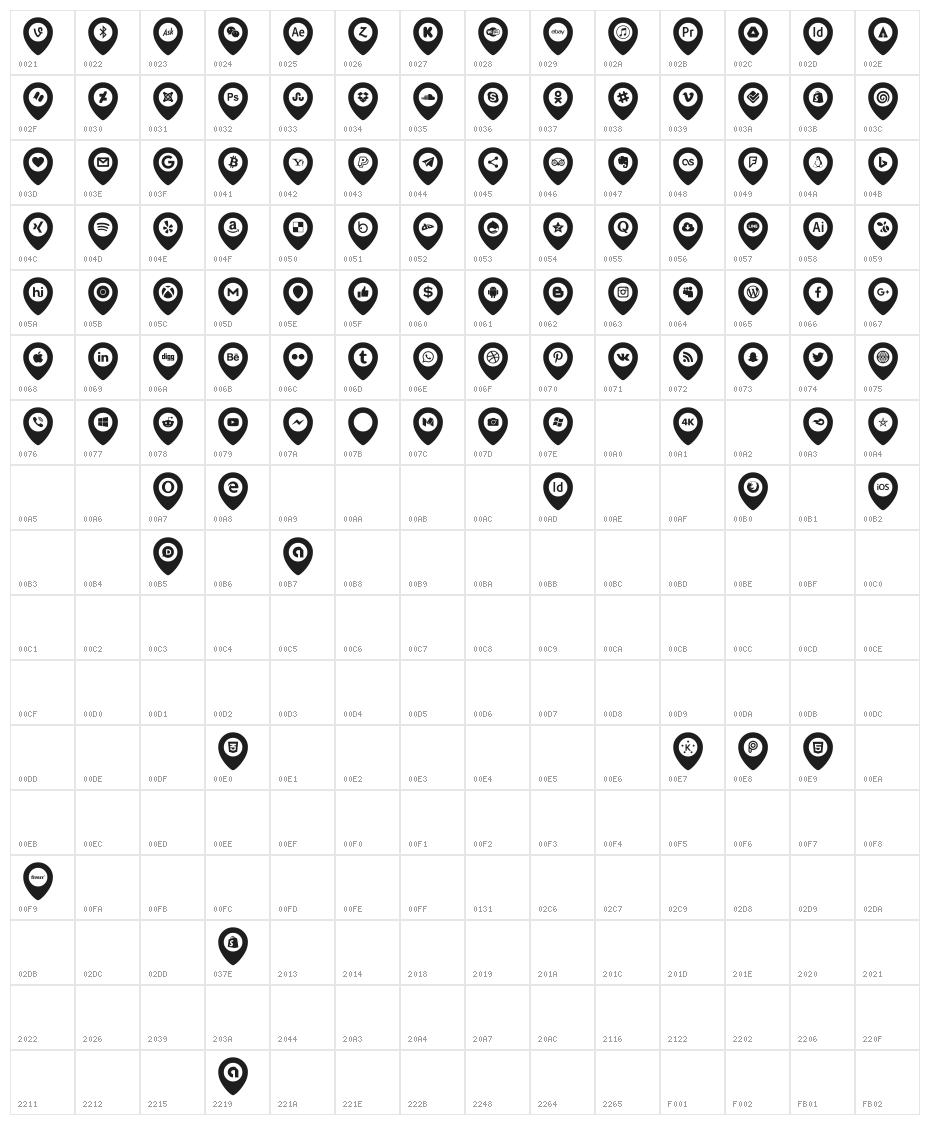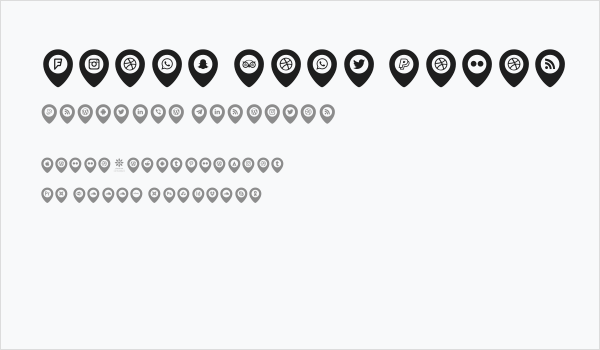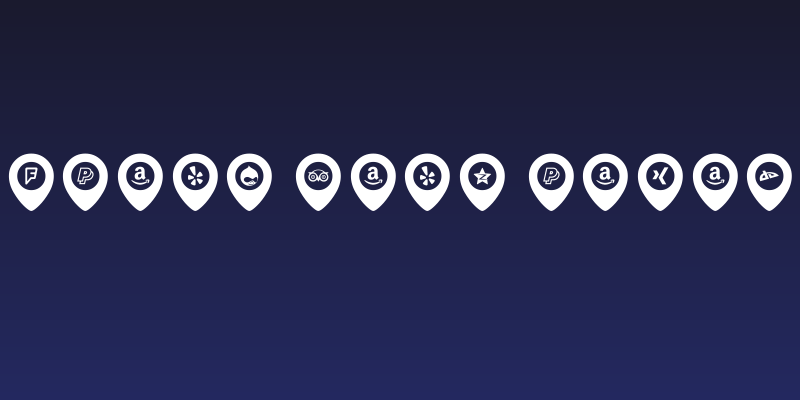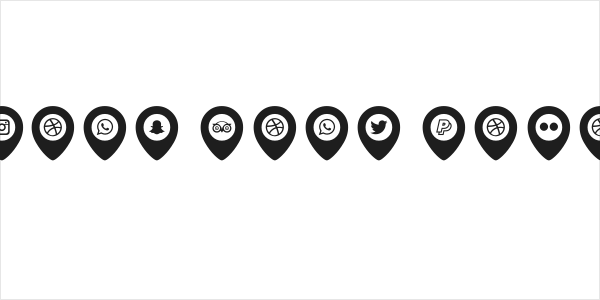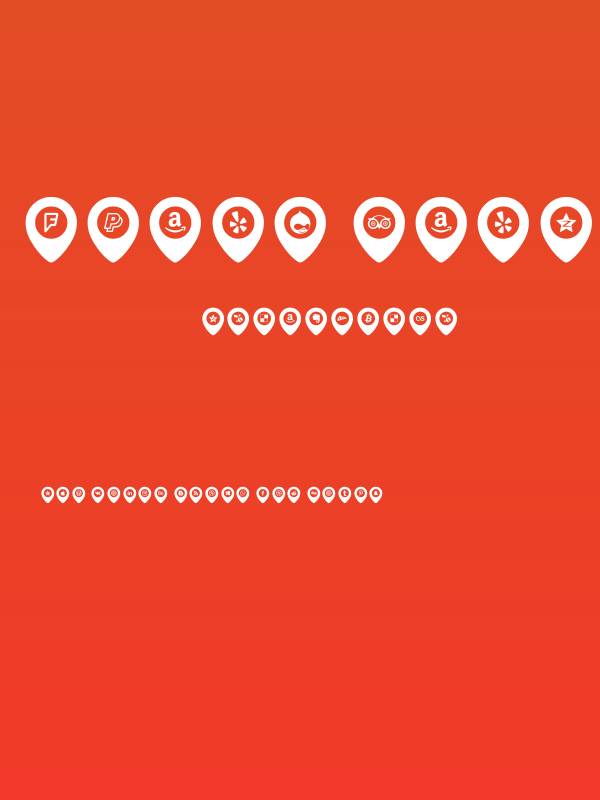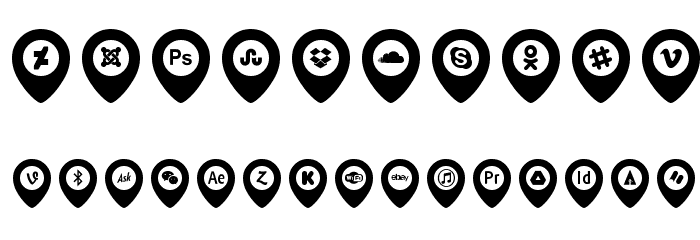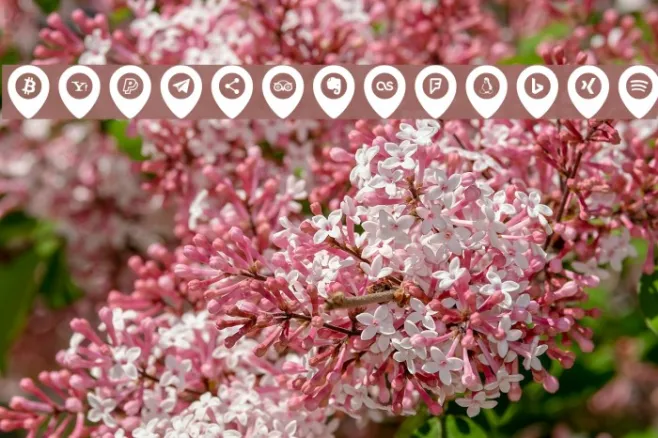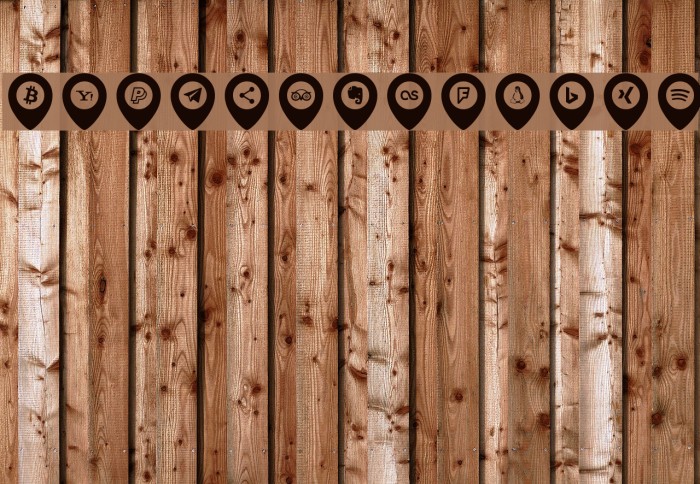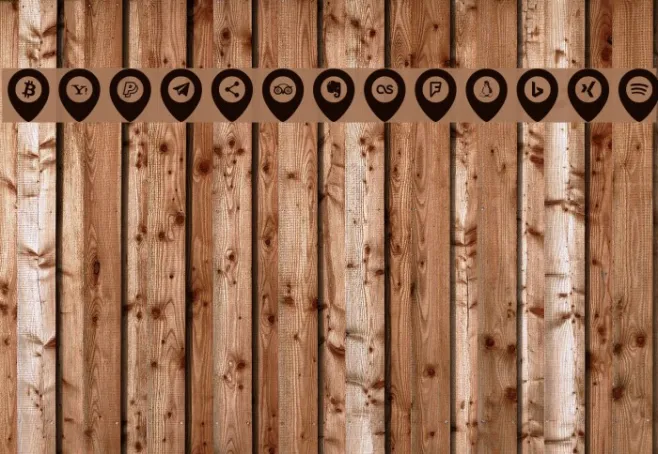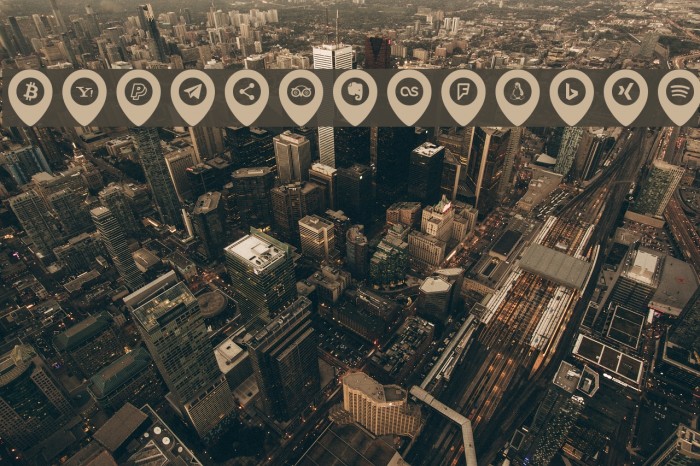
Icons Font Color Font
Icons Font Color Description
A set of monochrome social media and service icons placed within solid black map pin shapes, each icon rendered in a simple, geometric sans-serif style for clarity and high contrast.
| Overall Style | Modern, Minimalist, Functional |
| Use Case | Icons, UI elements, Navigation, Social media integration |
| Proposed Projects | App interfaces, maps, contact pages, social media links, digital dashboards. |